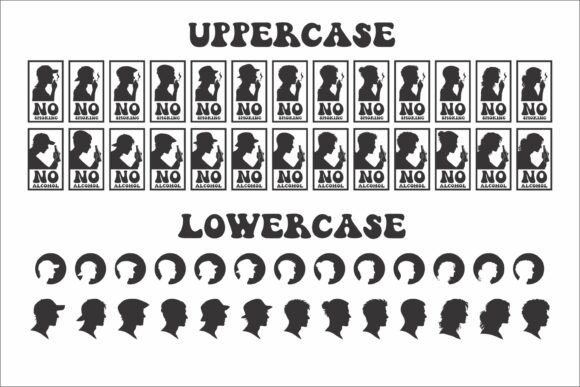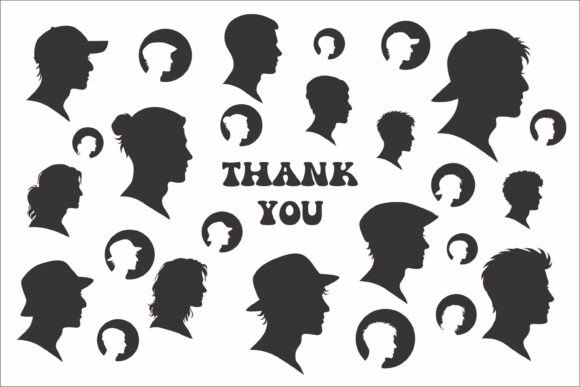
Introduction to Man & Habits Font
Have you ever found yourself in a brainstorming session, stuck on a creative project that needs a dash of personality? You’re scrolling through your design resources, searching for the perfect visual element to elevate your work. That’s where the Man & Habits Font comes in – a game-changing dingbats font that brings a touch of whimsy and humor to your designs.
This innovative font features a collection of side-profile male figures, each representing a unique human habit or lifestyle. With a clean and powerful black silhouette style, the Man & Habits Font is perfect for adding a high-quality, expressive visual to your project. Whether you’re working on a social campaign poster, editorial illustration, or branding project, this font is a valuable design resource that’s sure to capture attention.
Key Features of Man & Habits Font
- Unique, modern design suitable for creative projects and presentations.
- Comes in a transparent background version for added flexibility in design.
- High-resolution font files (up to 300 DPI) for crisp and clear display.
- Designed to be highly legible in various font sizes, making it perfect for headings and titles.
- Part of a larger collection of fonts, offering a wide range of design options and styles.
Honest Review: Man & Habits Font
As a designer, I’m always on the lookout for high-quality design resources to elevate my creative projects. Recently, I had the chance to try out the Man & Habits Font, and I’m excited to share my honest review.
- ✨ The font’s modern and sleek design makes it perfect for contemporary projects, from branding to digital products.
- ✨ It’s available in a range of weights, making it easy to customize and match your design needs.
- ✨ The font is highly legible, even on small screens or with transparent backgrounds.
- ⚠️ The font might not be suitable for more traditional or vintage-style projects, as it has a distinctly modern feel.
- ⚠️ Some users may find the font’s minimalist design too plain or lacking in character.
Overall, I’m impressed with the Man & Habits Font’s quality and versatility. It’s a great addition to any designer’s toolkit, and I’m excited to see how it can elevate my future creative projects.
Tips for Getting the Most Out of Man & Habits Font
Man & Habits Font is a high-quality design resource that can add a unique touch to your creative project. To get the most out of it, use it on a transparent background to create a clean and modern look.
Also, consider using it in conjunction with other design elements, such as graphics and images, to create a visually appealing design.
Man & Habits Font is a versatile design resource that can be used in a variety of contexts, including:
Blog posts and articles
Social media graphics
Business cards and brochures
And more!
Creative Projects with Man & Habits Font
Project 1: Minimalist Social Media Graphics
Project 2: Habit Tracker Infographic
Project 3: Personalized Journal Covers